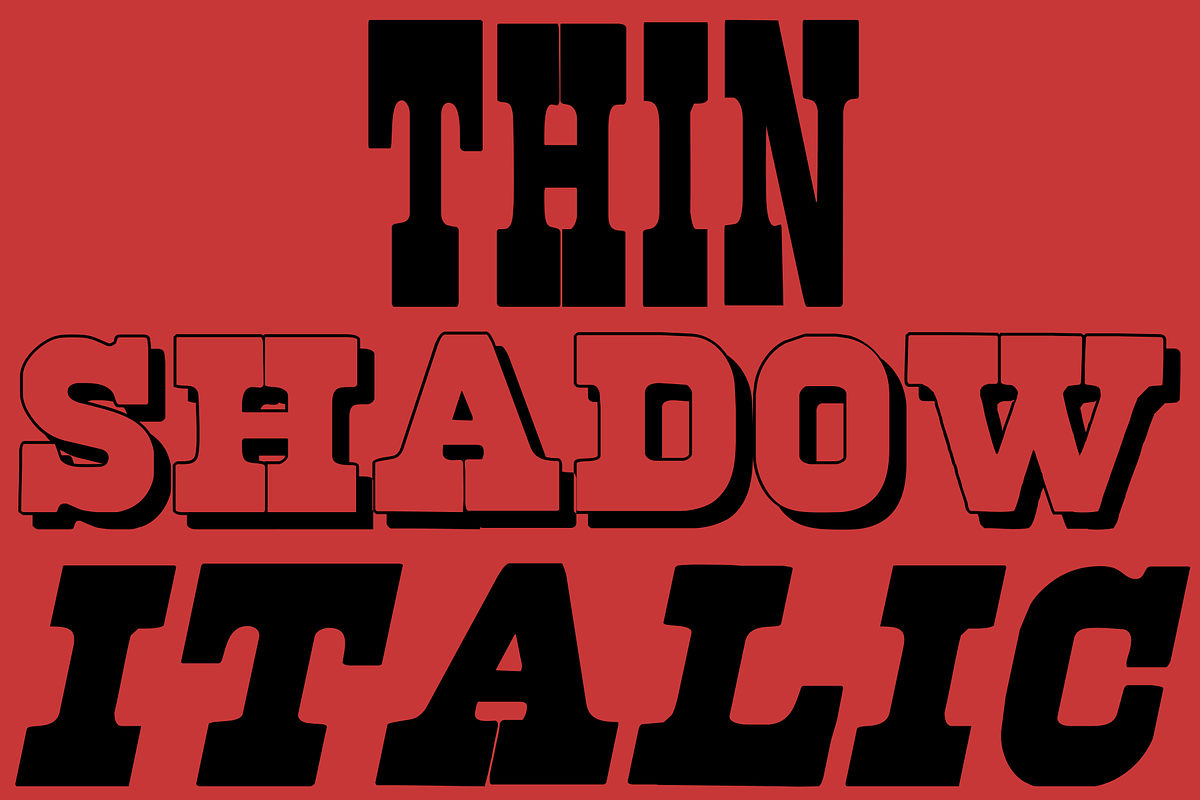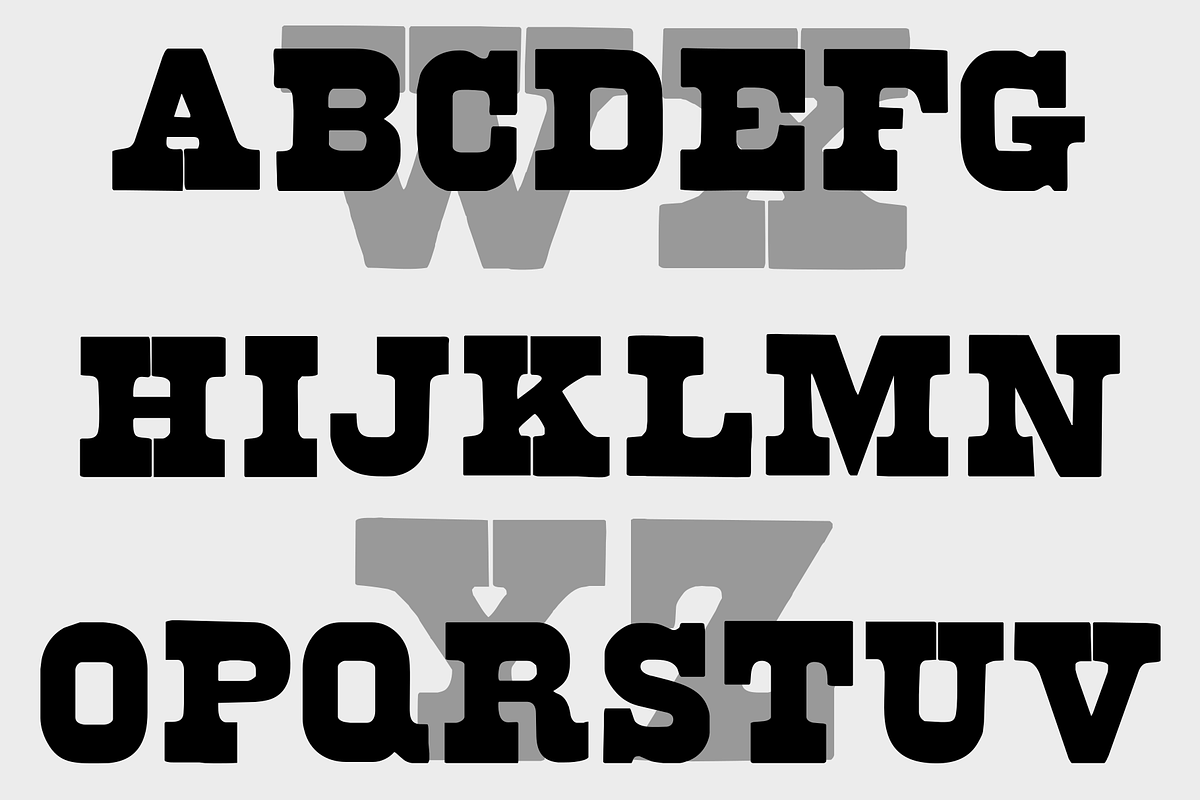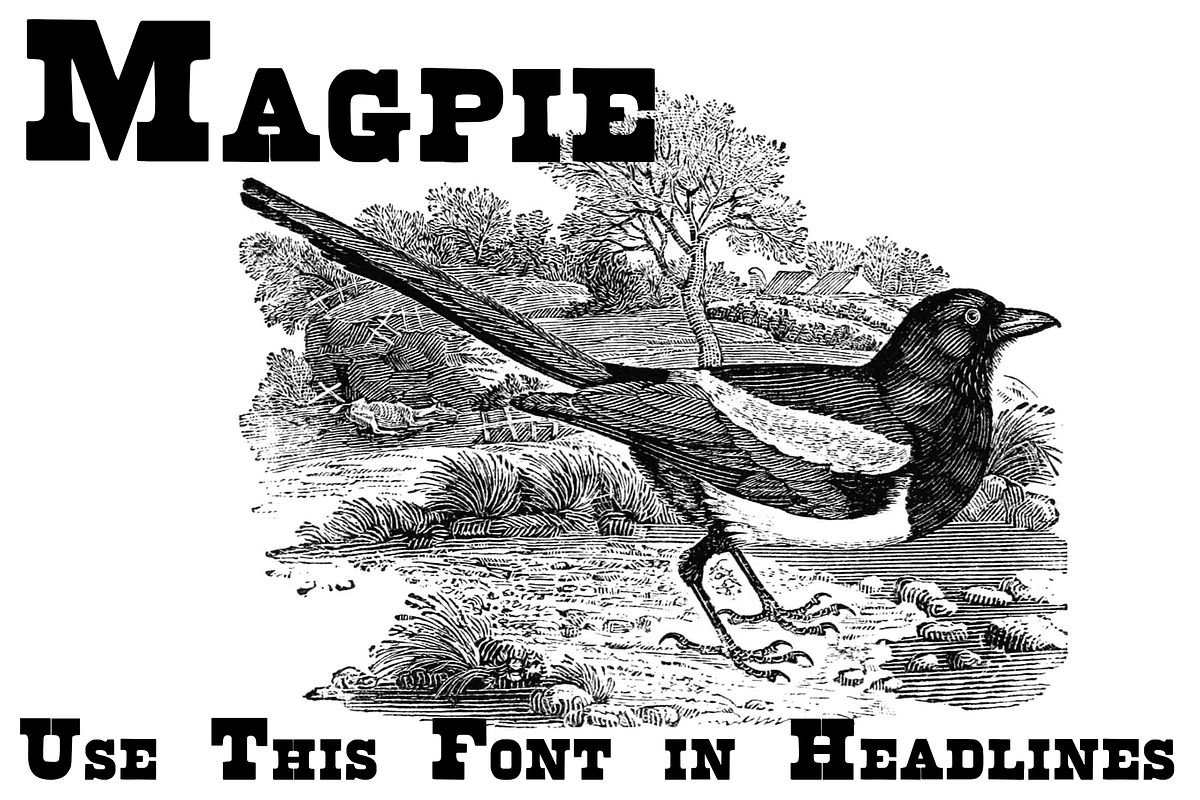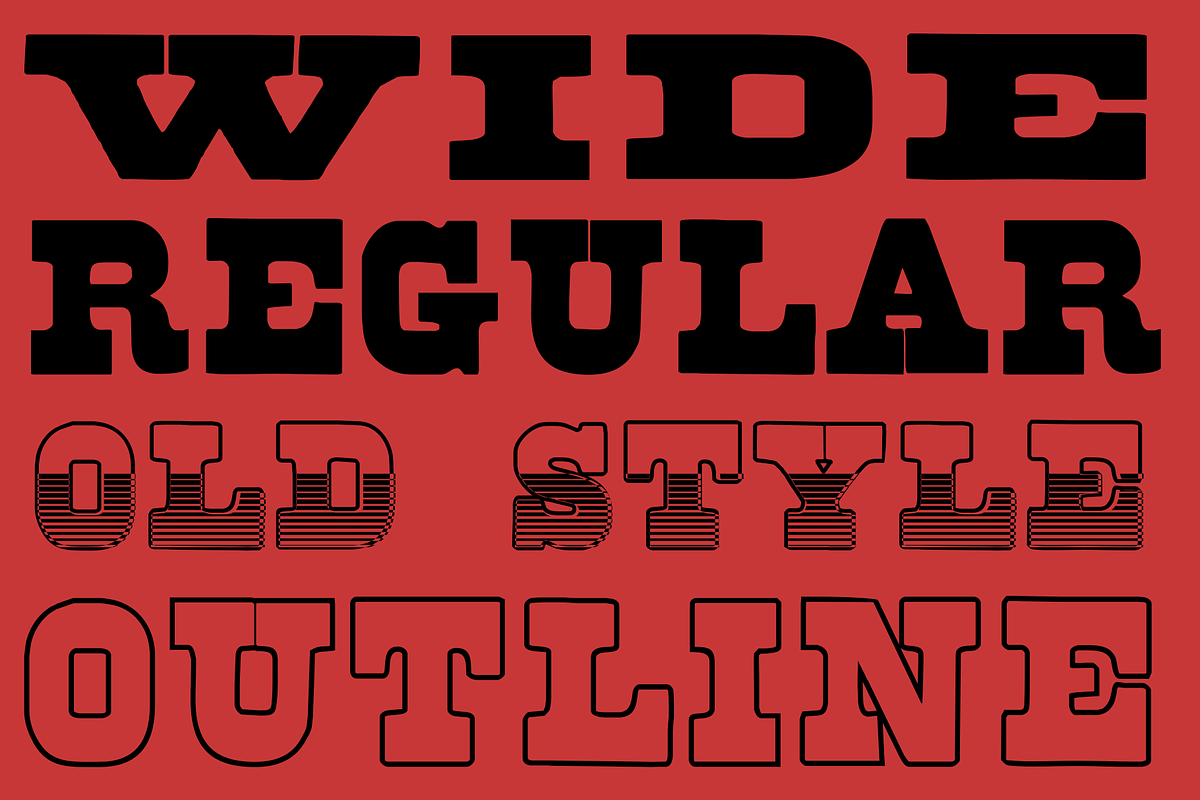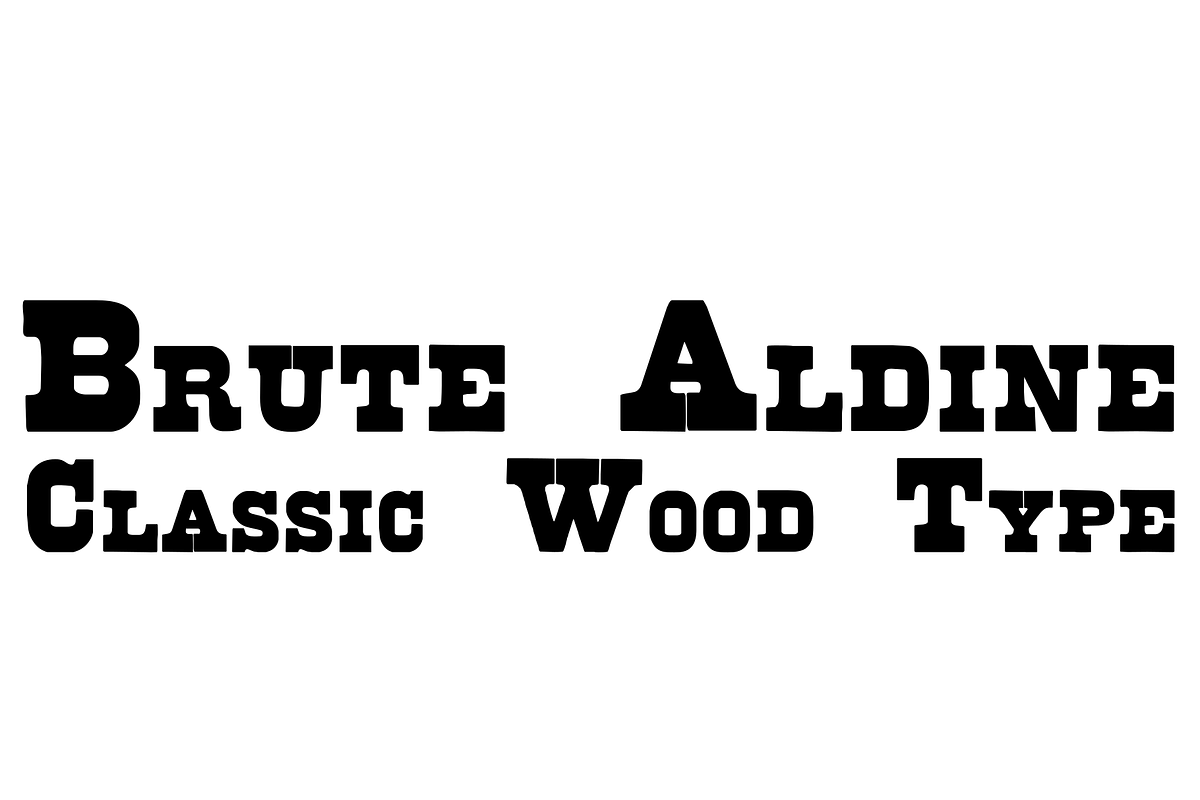
Brute Aldine
BruteAldine is a slab serif with a western feeling, from a classic woodtype font (French Clarendon). This typeface has seven styles. The medium width has Outline, Shadow, Old Style (outlined with lower half filled with horizontal striped, and Italic variants.